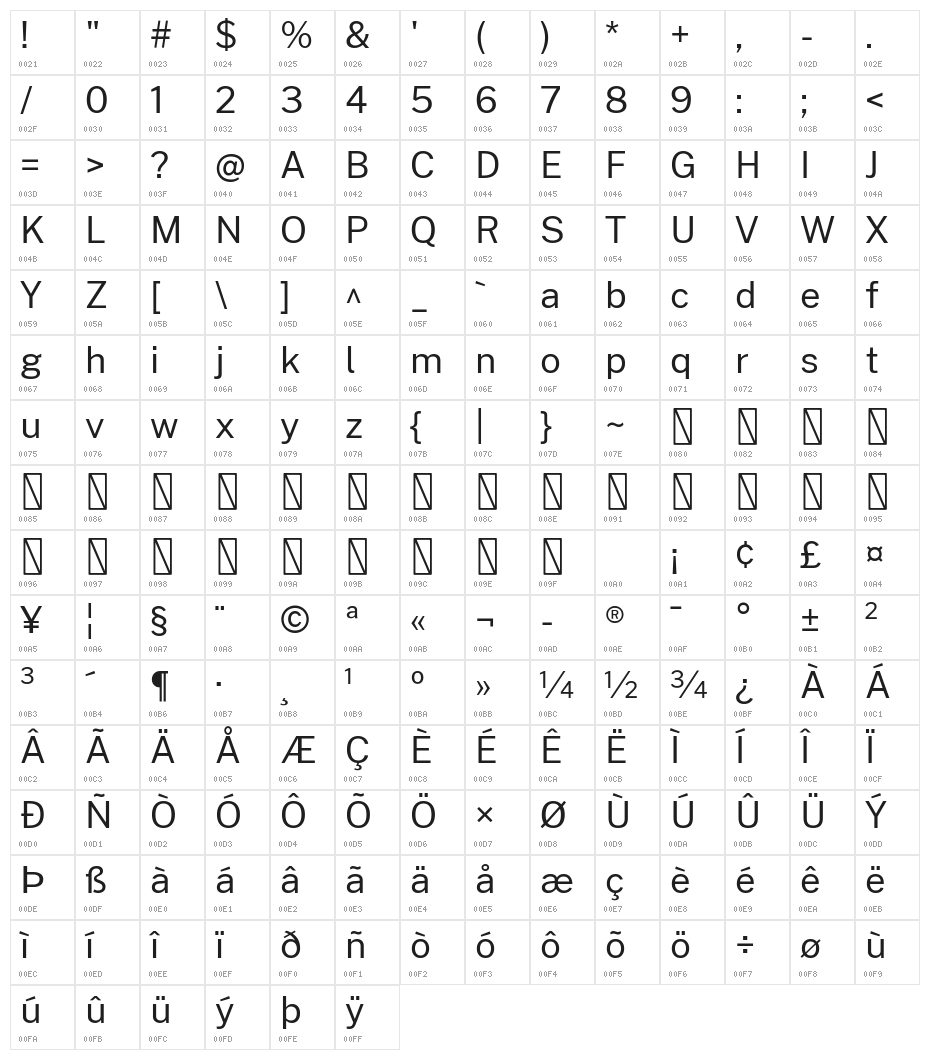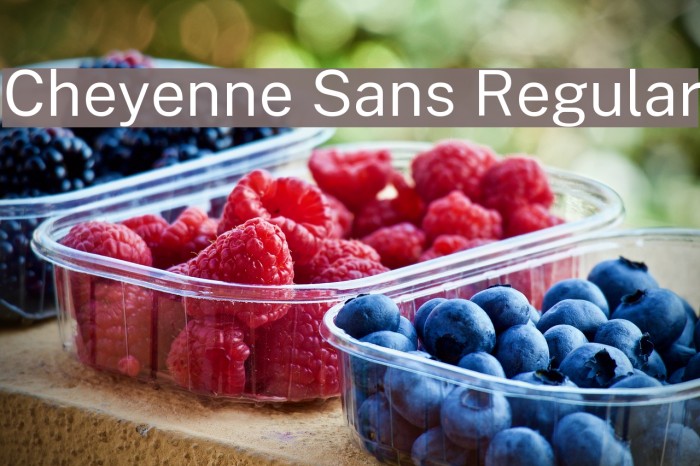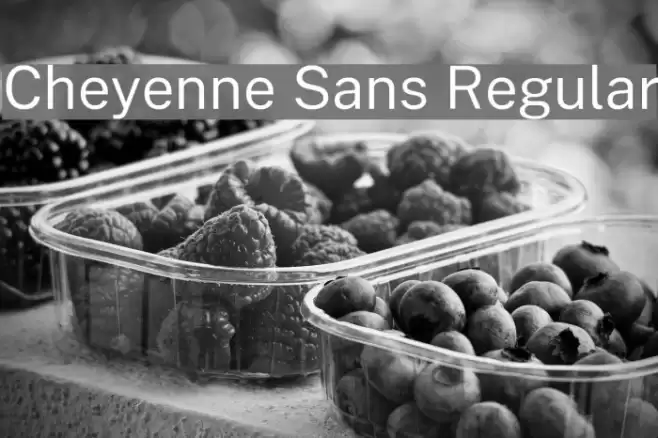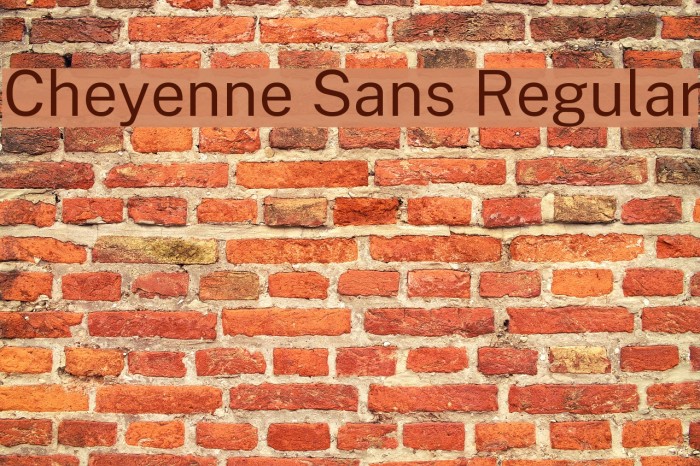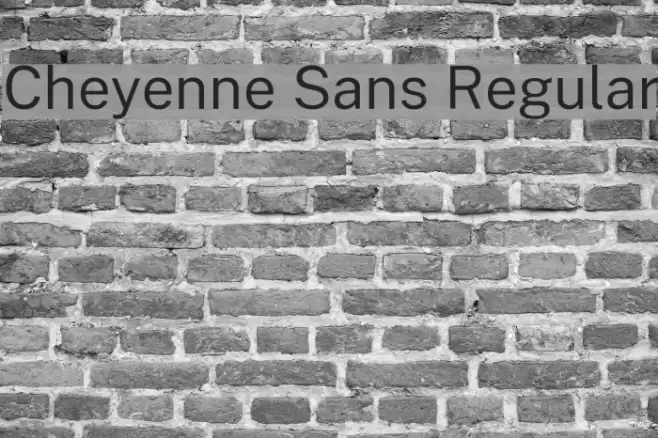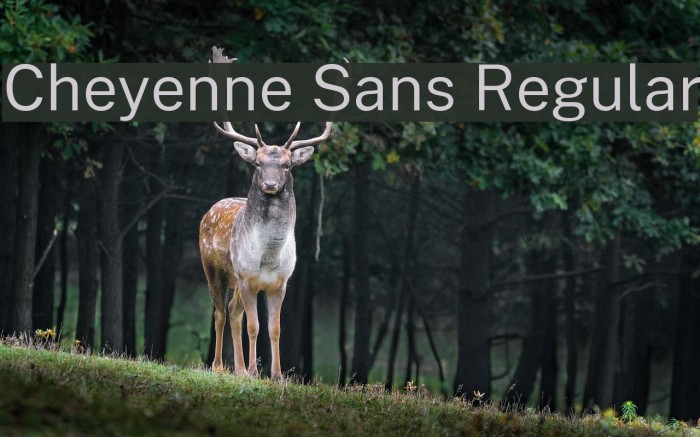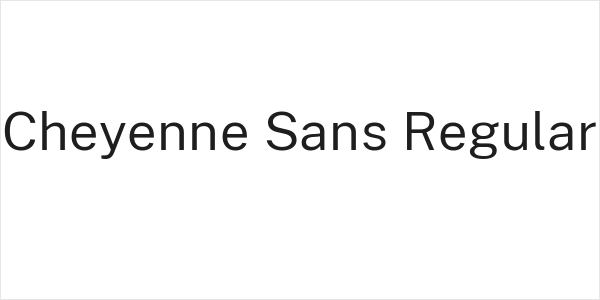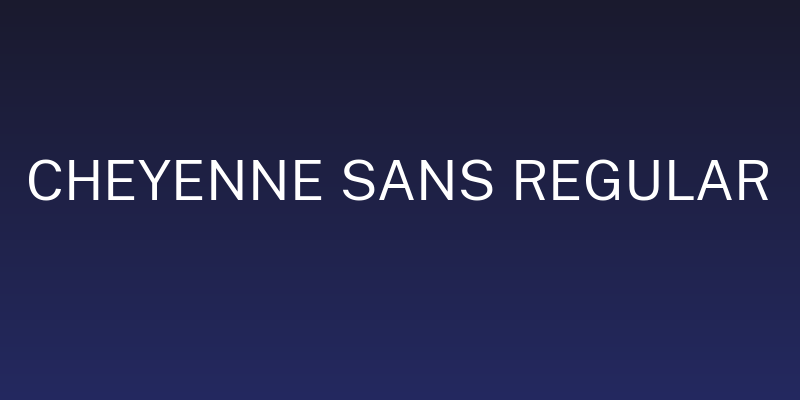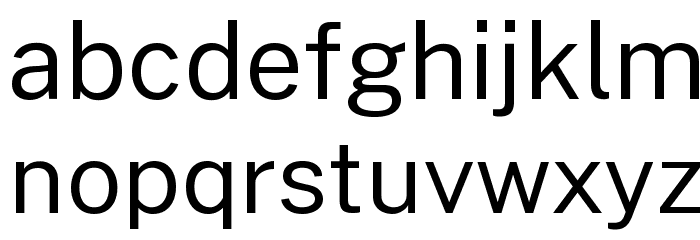
Cheyenne Sans Regular Font
Cheyenne Sans Regular Description
This typeface features a clean and modern sans-serif design with a focus on simplicity and readability. The characters are evenly spaced, with a consistent stroke width that provides a uniform appearance across all letters and numbers. The uppercase and lowercase letters are well-proportioned, making it suitable for a variety of applications. The numerals are clear and distinct, ensuring easy legibility. Special characters are included, maintaining the font's cohesive style. This font is versatile, offering a professional look that can be used in both digital and print media.
| Proposed Projects | Ideal for corporate branding, website design, user interfaces, and print materials such as brochures and flyers. |